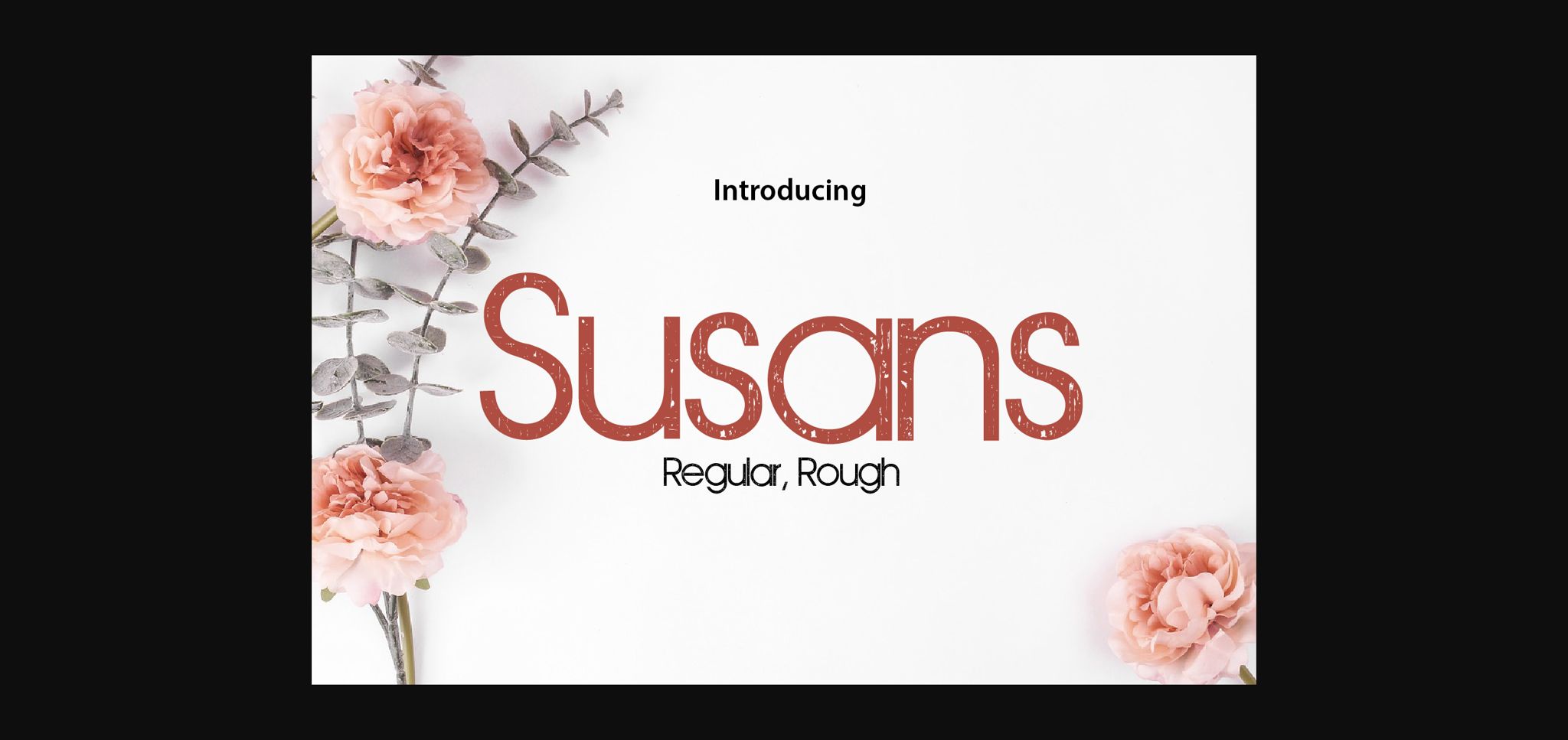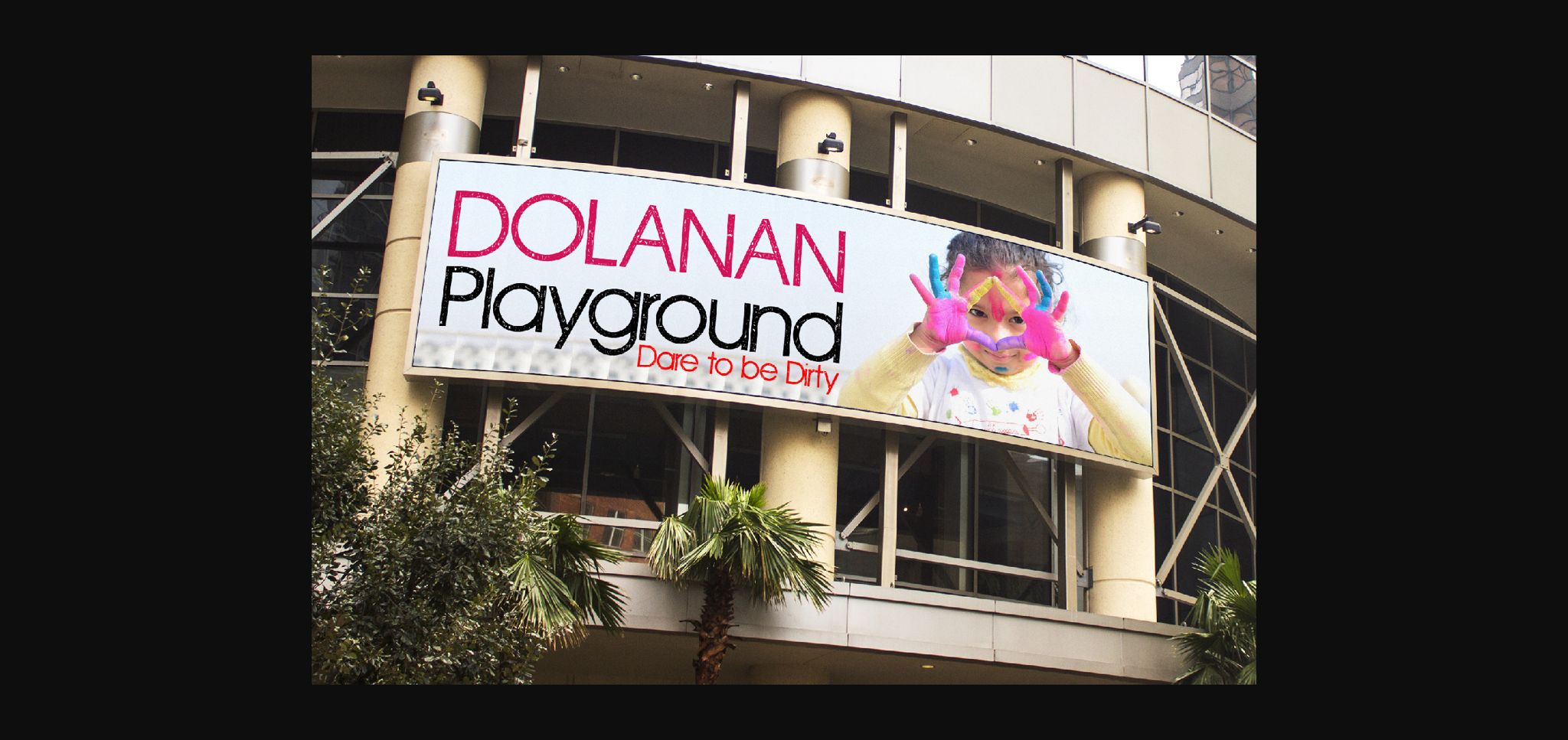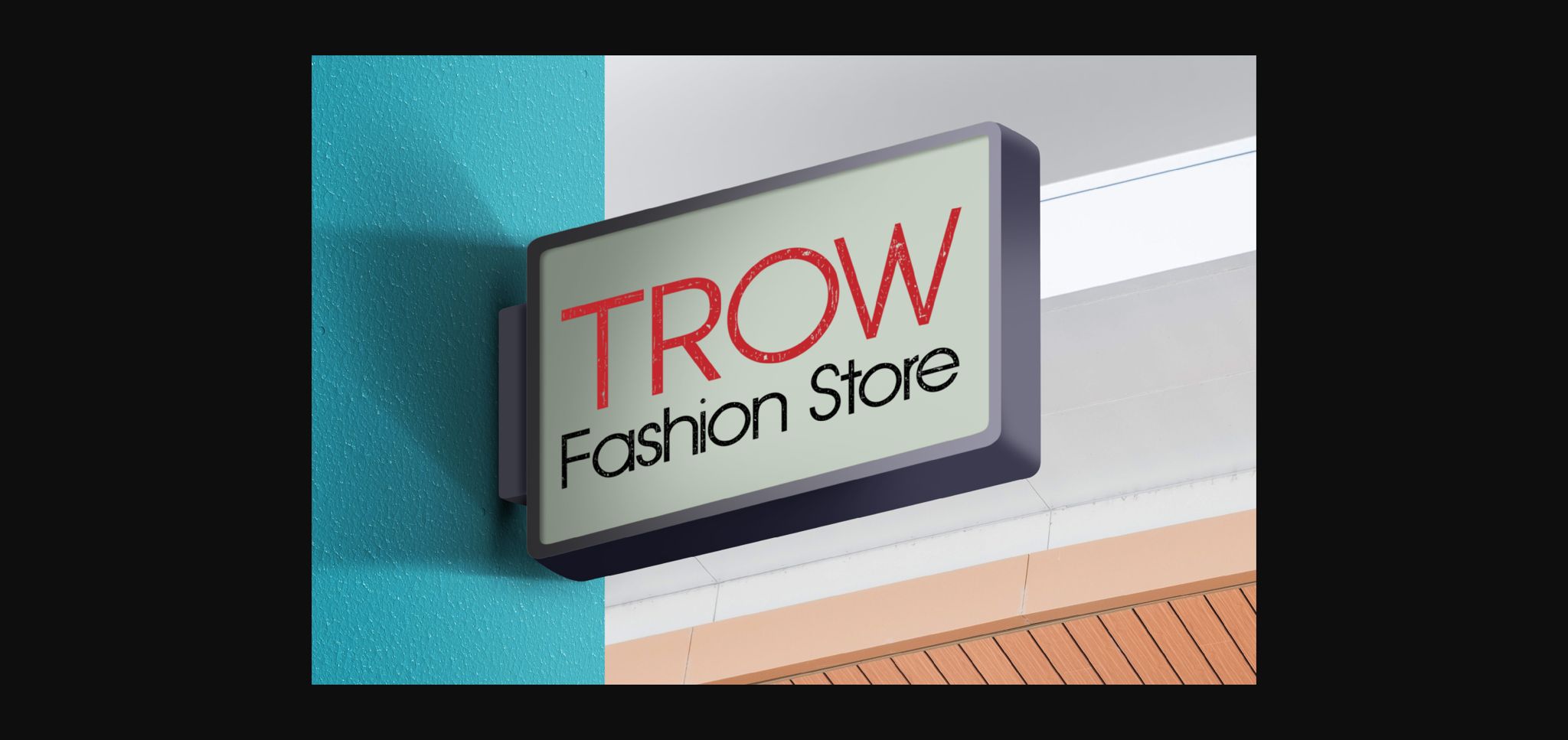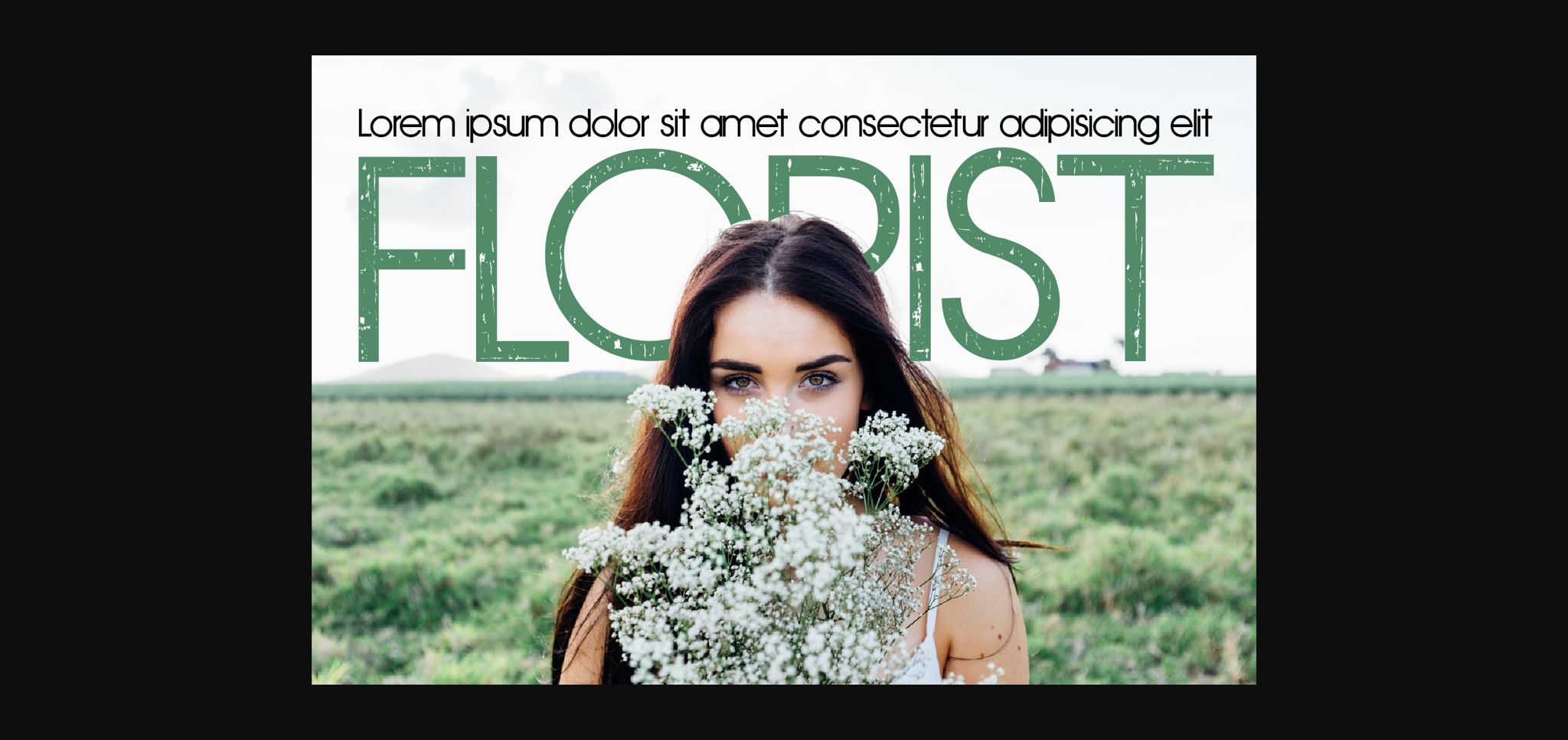
Susans Font
About Susans Font
“Susans” emerges as a straightforward and tidy sans serif font, offering versatility across a vast array of design projects. Its simplicity and cleanliness make it a suitable choice for a diverse range of applications, allowing it to seamlessly blend into various creative endeavors and elevate their visual appeal.
Whether employed in branding initiatives, logo design, web content, print materials, or any other design context, “Susans” stands ready to make a distinctive mark. Its understated aesthetic serves as a canvas for creative expression, enabling designers to experiment with different styles and concepts while maintaining a cohesive look and feel.
With “Susans” as a foundational element in your typographic toolkit, the possibilities are virtually limitless. From sleek and minimalist designs to bold and attention-grabbing compositions, this font adapts effortlessly to meet the unique requirements of each project, ensuring consistency and professionalism throughout.
Whether you’re crafting sleek corporate identities, designing captivating advertisements, or creating engaging social media graphics, “Susans” offers a clean and modern typographic solution that enhances the overall visual impact of your work. Its versatility allows it to complement a wide range of design elements, making it a valuable asset for both seasoned professionals and aspiring designers alike.
In summary, “Susans” is more than just a font—it’s a versatile tool that empowers creativity and enhances the visual appeal of any project. By incorporating “Susans” into your creative endeavors, you’ll discover its ability to elevate your designs and make them stand out with a touch of simplicity and sophistication.
“Susans” is a versatile sans serif font that effortlessly adapts to a myriad of design projects. Its clean and tidy appearance ensures a professional and polished look, making it a valuable addition to any creative toolkit. Whether you’re working on branding, print materials, web design, or more, “Susans” adds a touch of refinement and elegance that helps your projects stand out. With its understated charm and universal appeal, this font offers endless possibilities for creative expression, allowing you to bring your ideas to life with clarity and style.